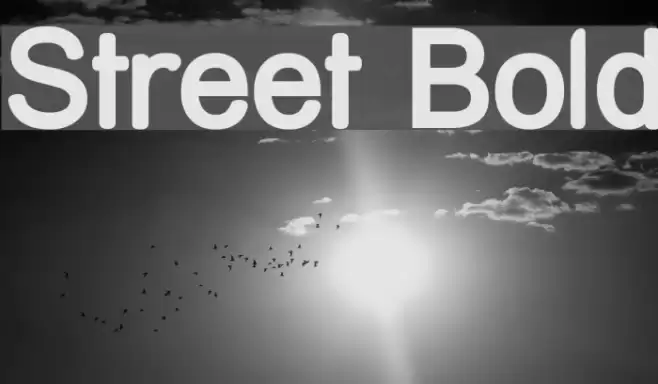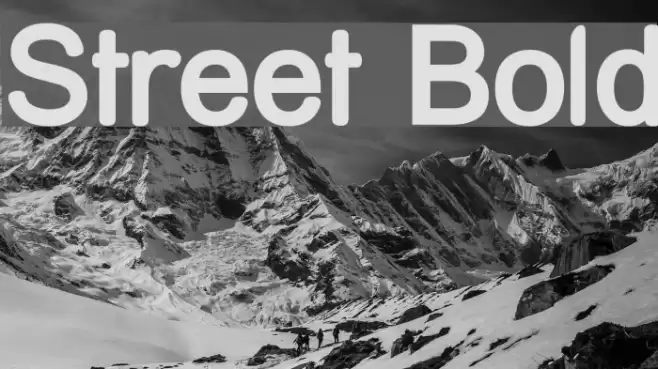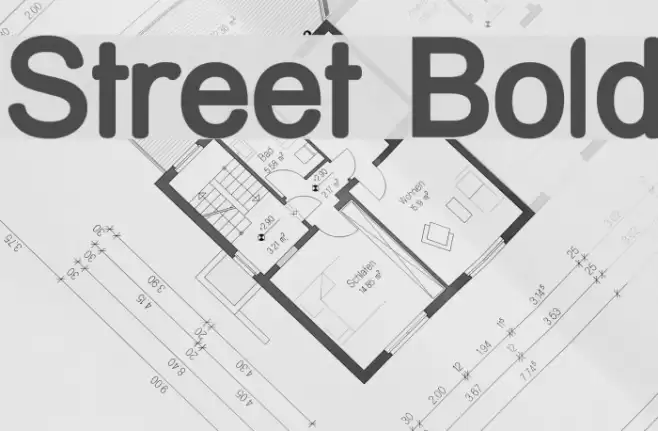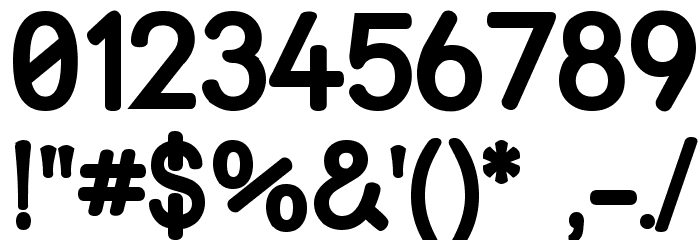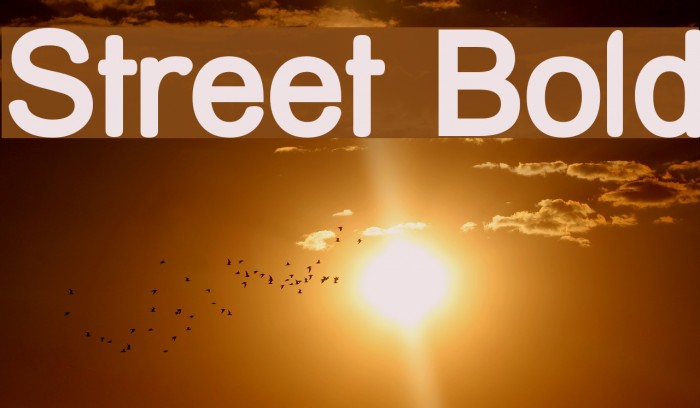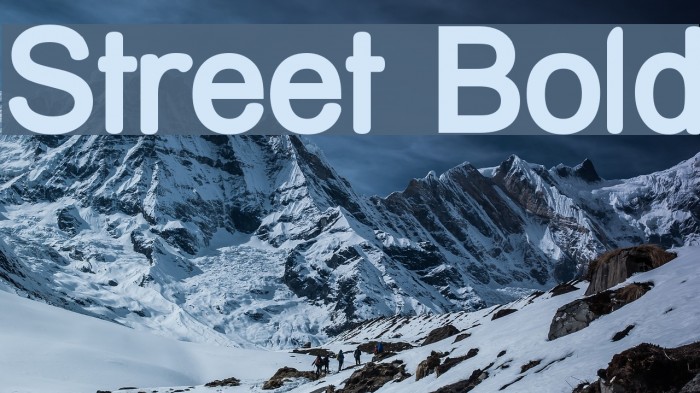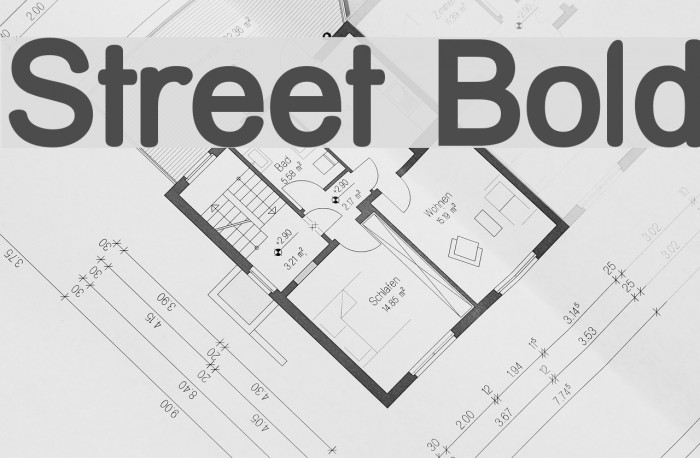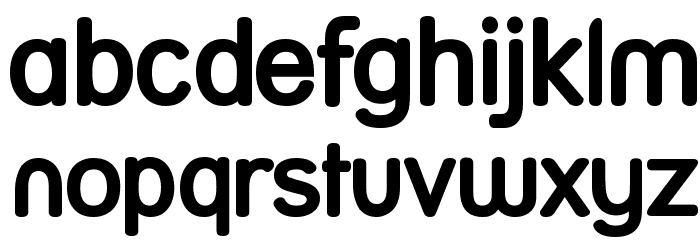
Street Bold
This font features a bold and rounded sans-serif style, characterized by its smooth curves and consistent stroke width. The uppercase and lowercase letters maintain a uniform appearance, contributing to a clean and modern aesthetic. The numerals are clear and easily distinguishable, while the special characters are designed to complement the overall style. This font's simplicity and readability make it versatile for various design applications.
A bold, rounded sans-serif font with a modern and clean aesthetic.
- Proposed Projects: Ideal for branding, signage, headlines, and digital content where a bold and modern look is desired.
- Use Case: Headlines, Logos, Signage